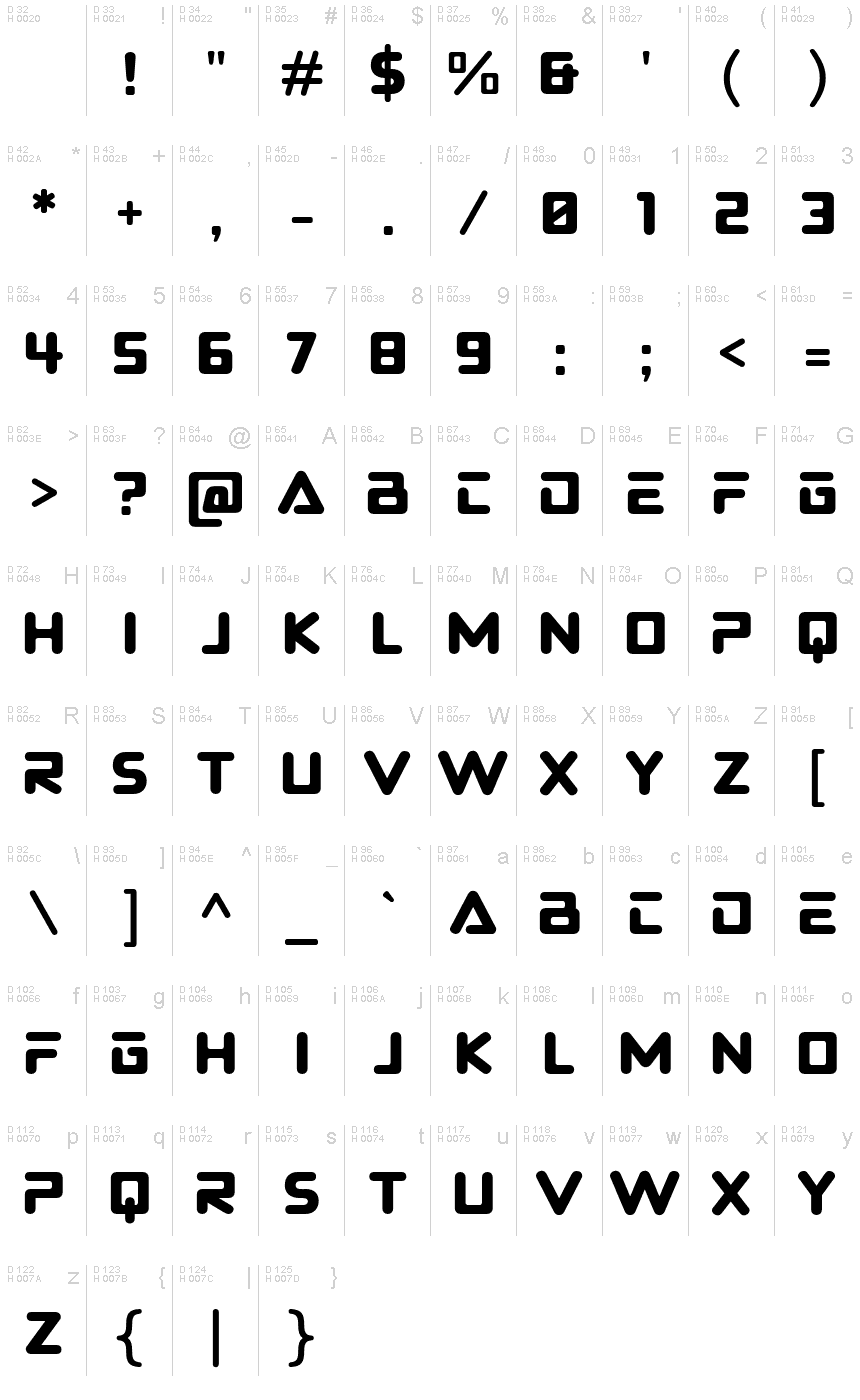
Felas-Regular
Felas, a bold display font crafted by Faqih Fawaji, stands at the intersection of modernity and futurism. Its semi-expanded width and assertive lines carve out a presence that demands attention while its sleek contours suggest a forward-thinking aesthetic. The typeface boasts a unique blend of geometry and sophistication that makes it an ideal choice for projects aiming to convey innovation or high-tech concepts.
The robust weight of Felas pairs with its futuristic style to create an impactful visual statement, perfect for headers, logos, and any space where the text is the hero. The font's character shapes exude confidence and are designed to be versatile across a variety of creative endeavors—from digital platforms to print media—ensuring that your message not only stands out but also resonates with an audience attuned to contemporary design trends.
Embrace the cutting-edge appeal of Felas for your next project and let its distinct personality elevate your visual narrative.